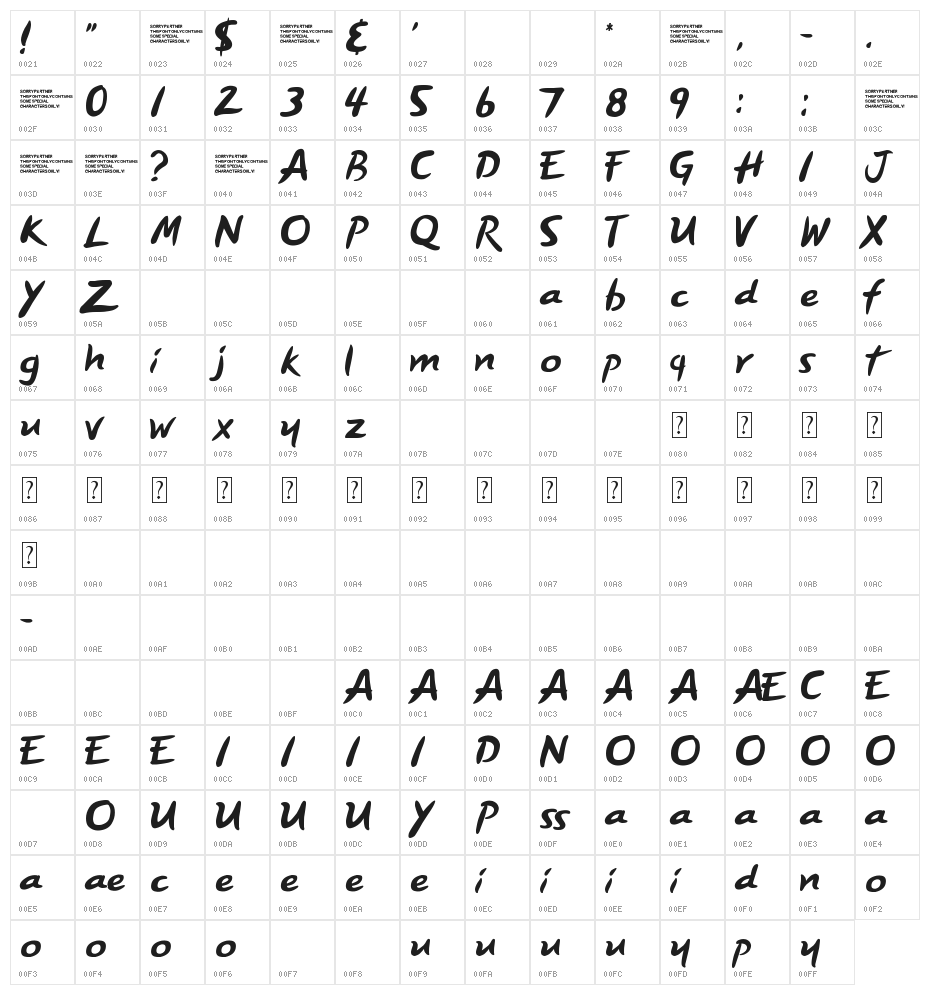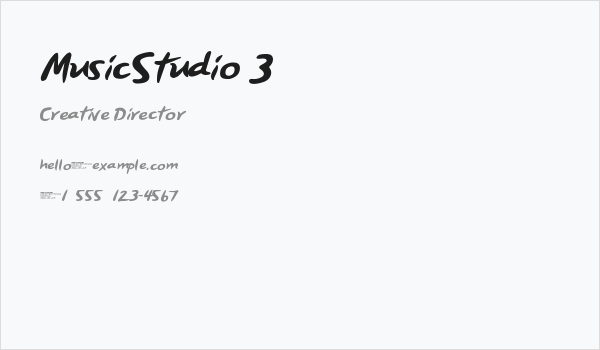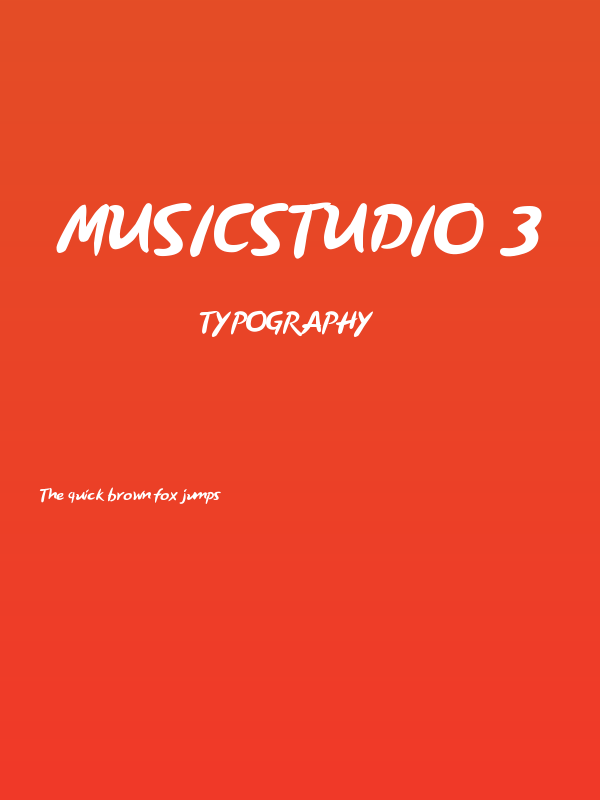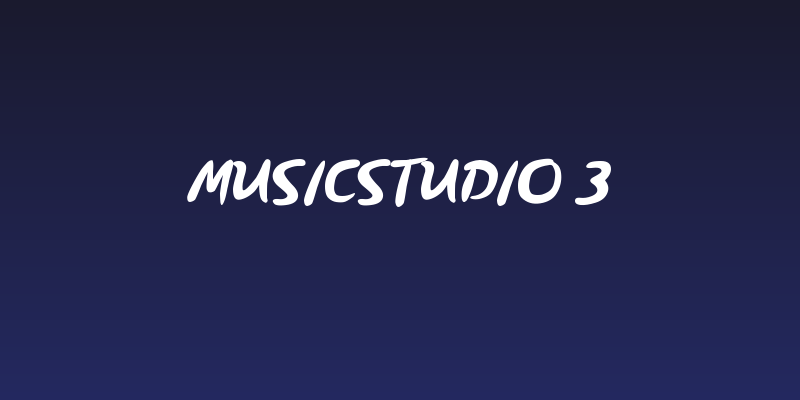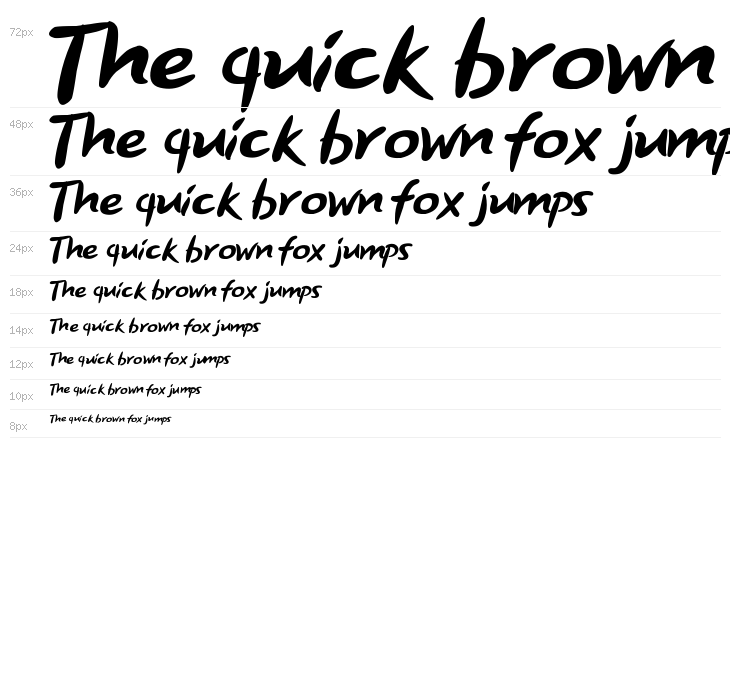
MusicStudio 3 Font
MusicStudio 3 Description
This font exhibits a dynamic and energetic style, characterized by its bold, flowing strokes and a handwritten appearance. The uppercase and lowercase letters maintain a consistent slant, giving a sense of motion and fluidity. The numbers and special characters complement the alphabet with similar stylistic elements, ensuring a cohesive look across all glyphs. The font's brush-like texture adds a personal and informal touch, making it suitable for creative and expressive designs. Its unique style captures attention and conveys a sense of creativity and spontaneity.
| Use Case | Logos, Posters, Branding |
| Proposed Projects | Ideal for creative projects such as logos, posters, and branding materials that require a personal and expressive touch. |